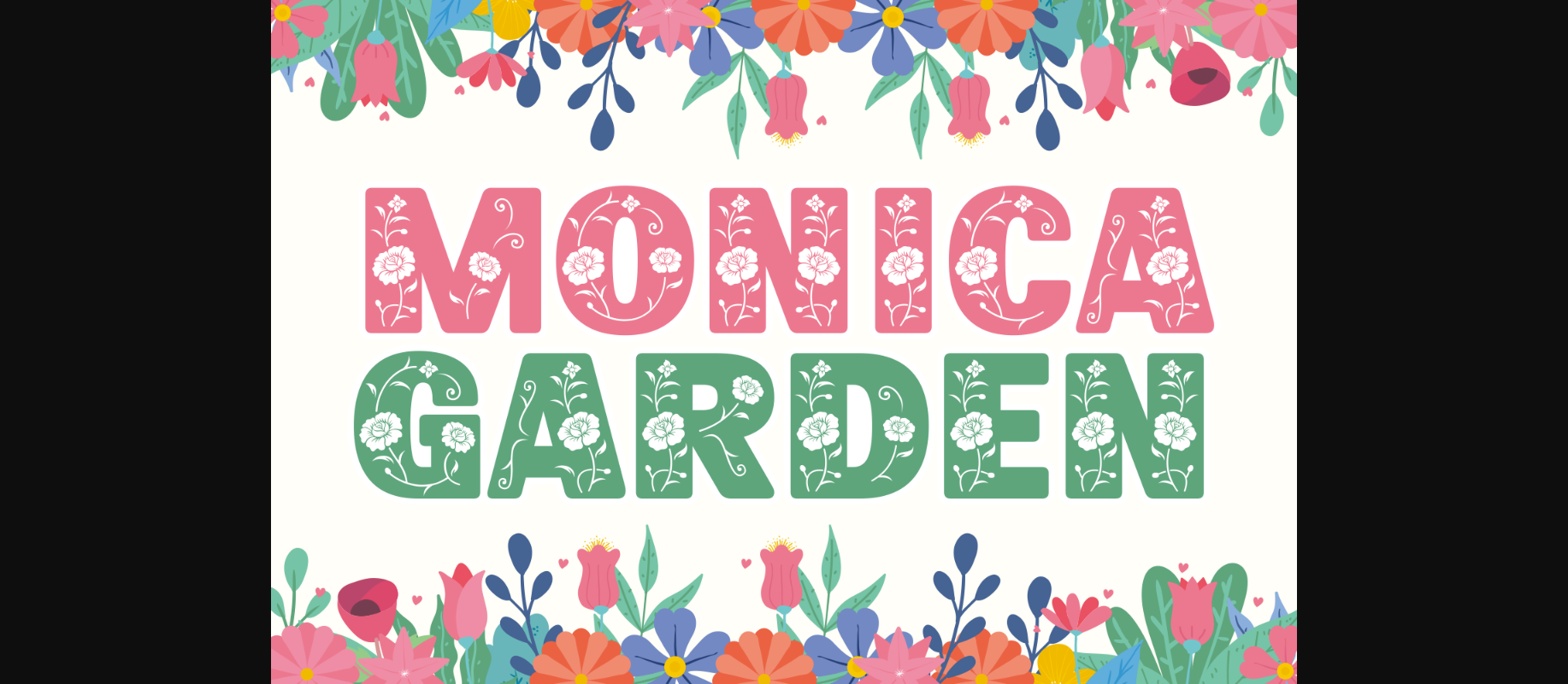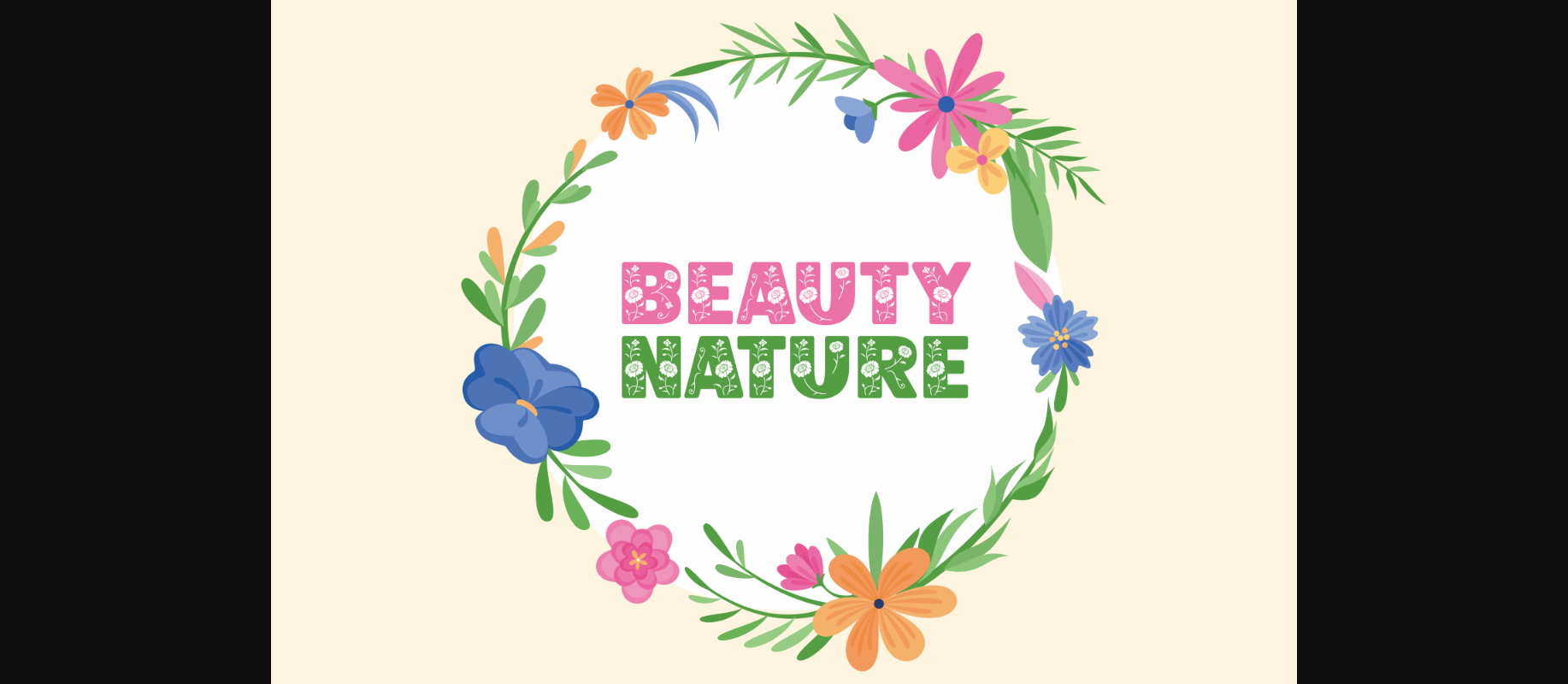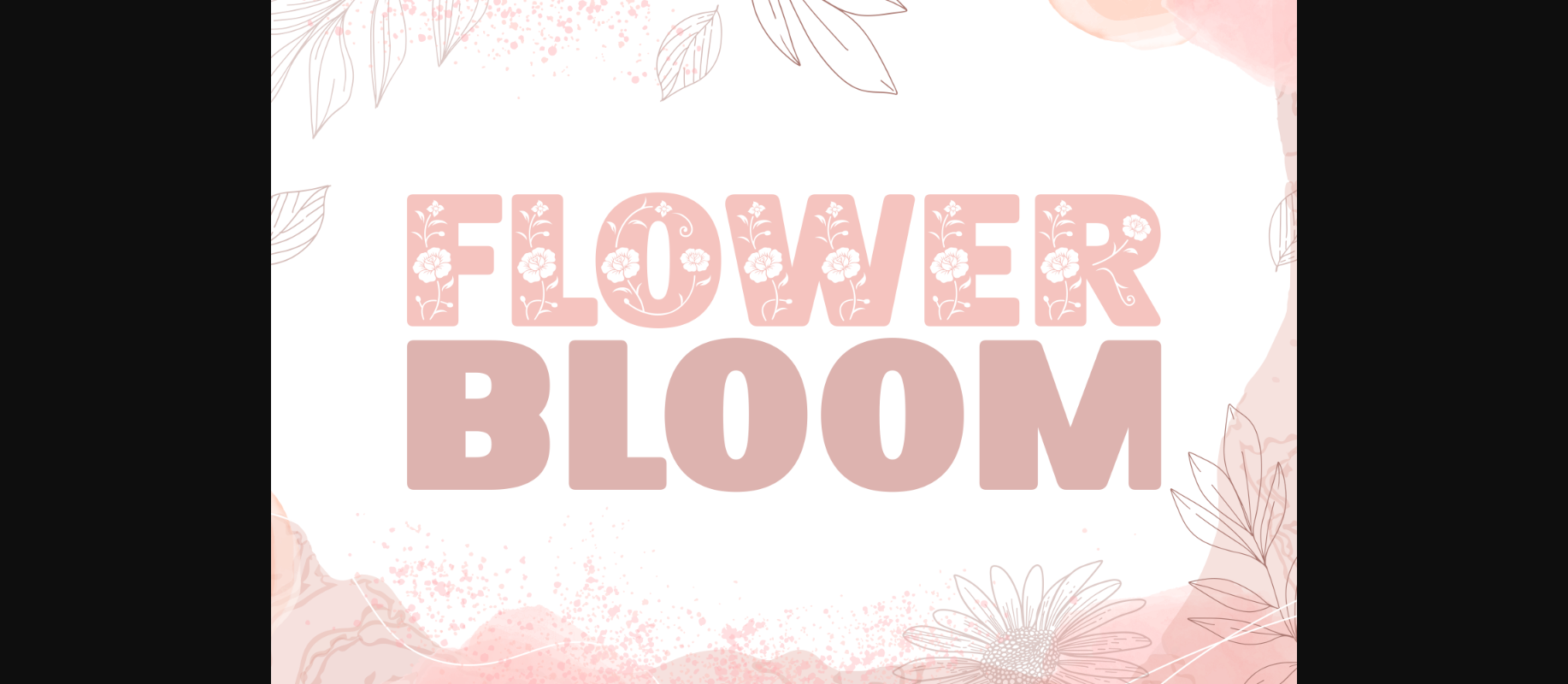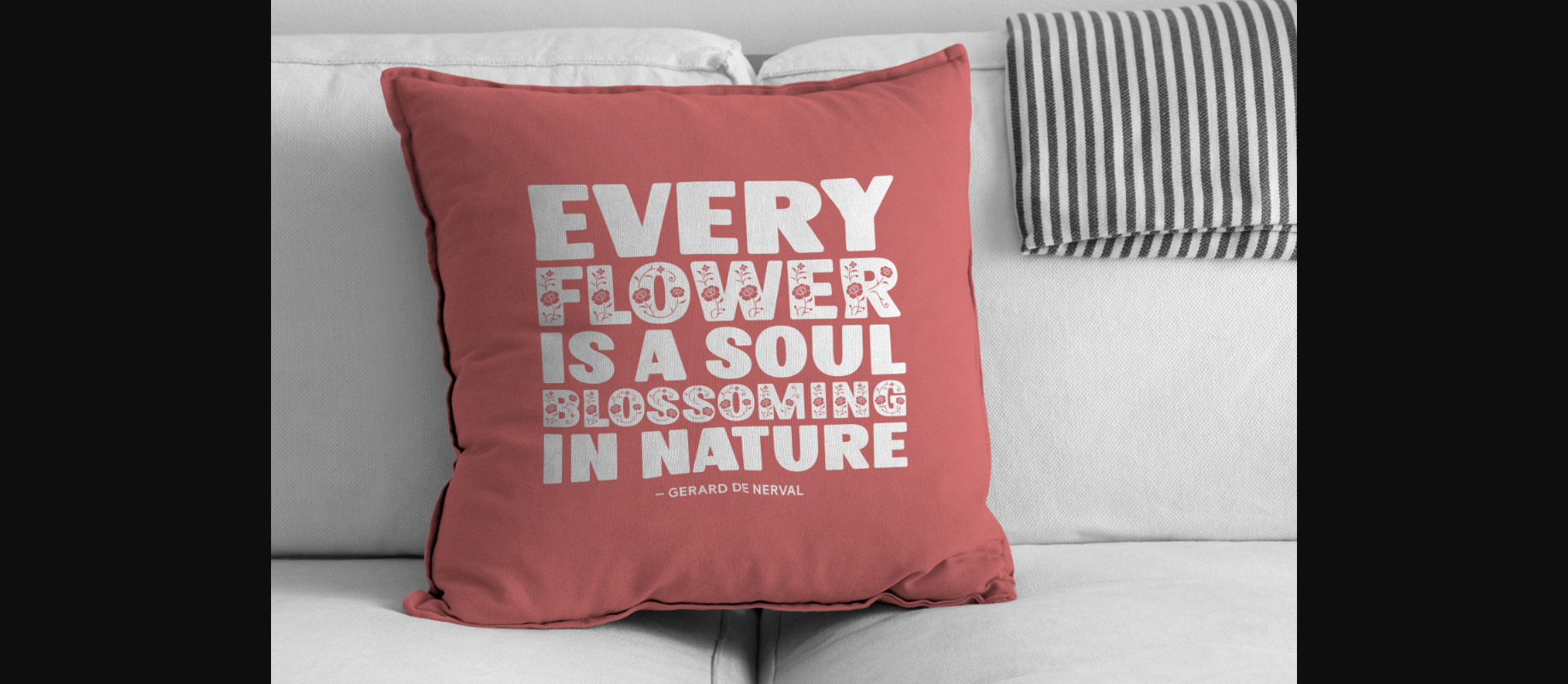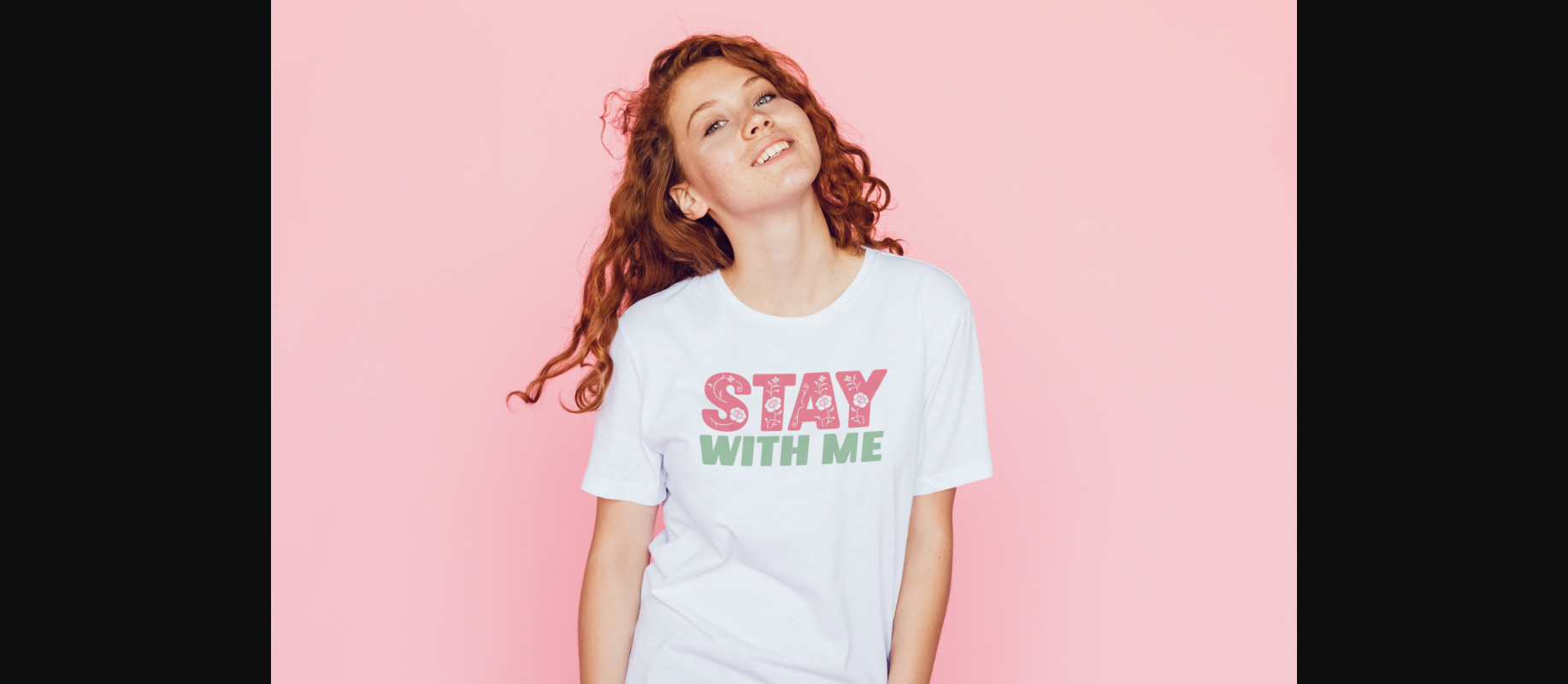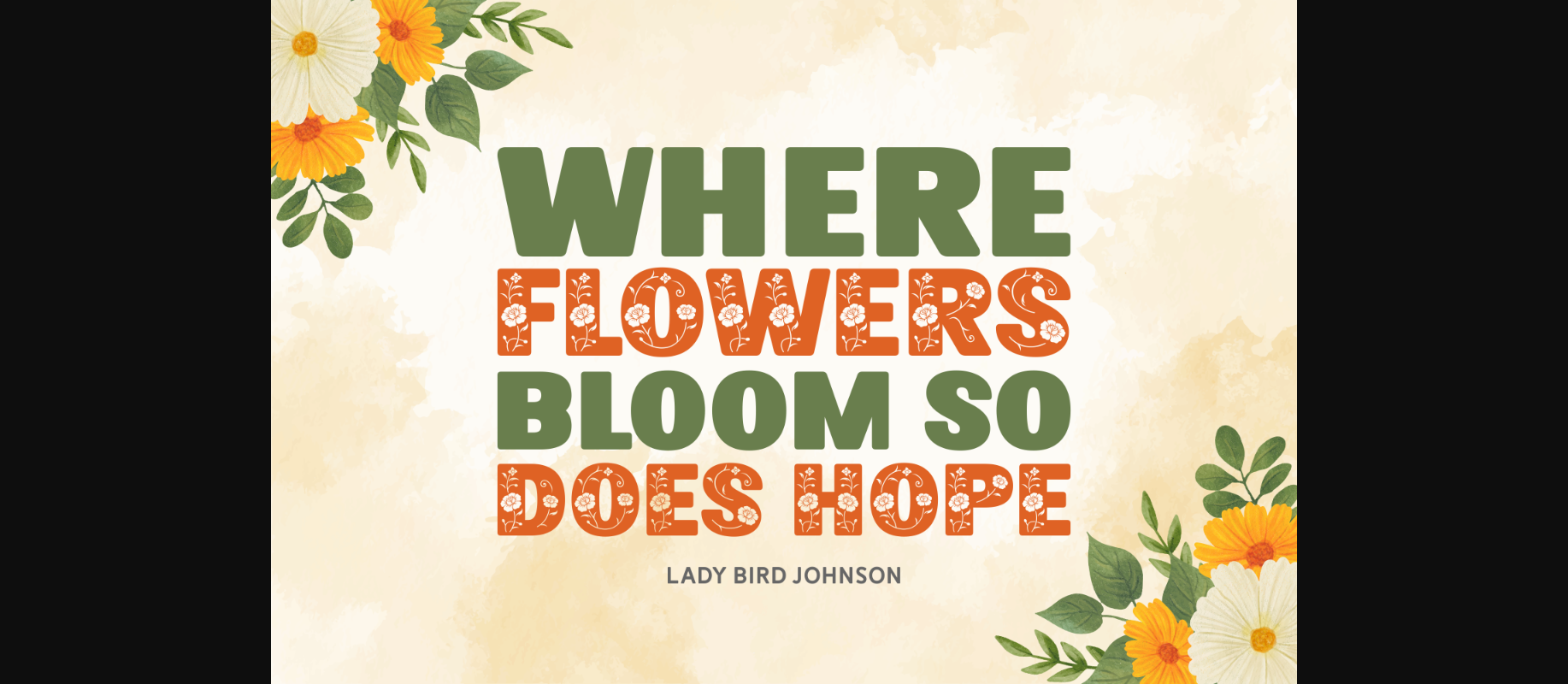
About Monica Garden Font
Experience the beauty and elegance of a floral and modern decorative font that’s sure to elevate your projects. Its intricate details and delicate floral elements create a sense of sophistication and refinement, making it perfect for wedding invitations, branding, and other upscale designs. Let Monica Garden add a touch of natural beauty to your creations.